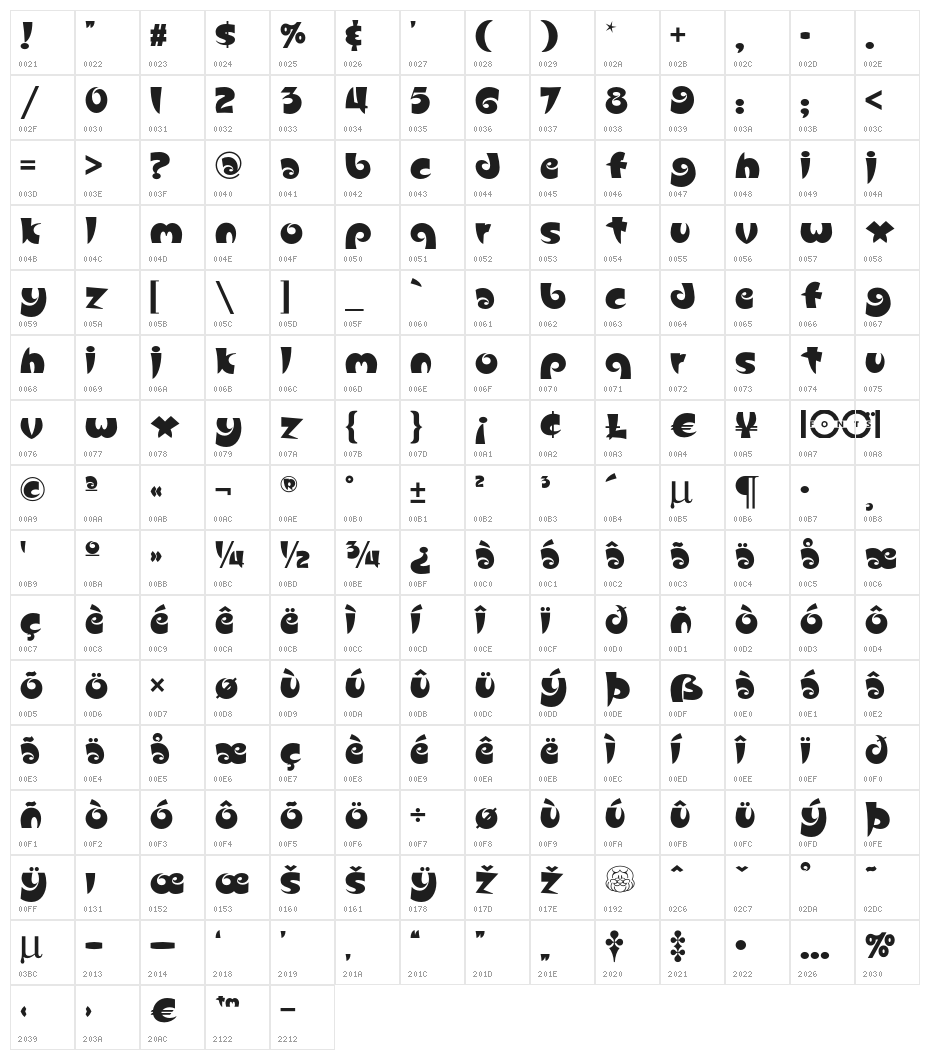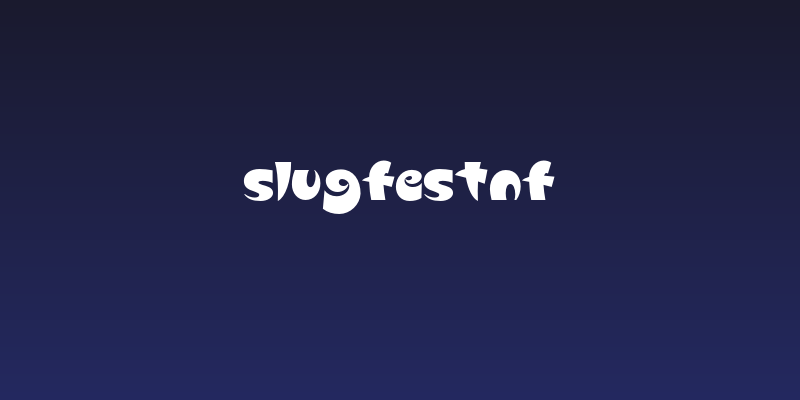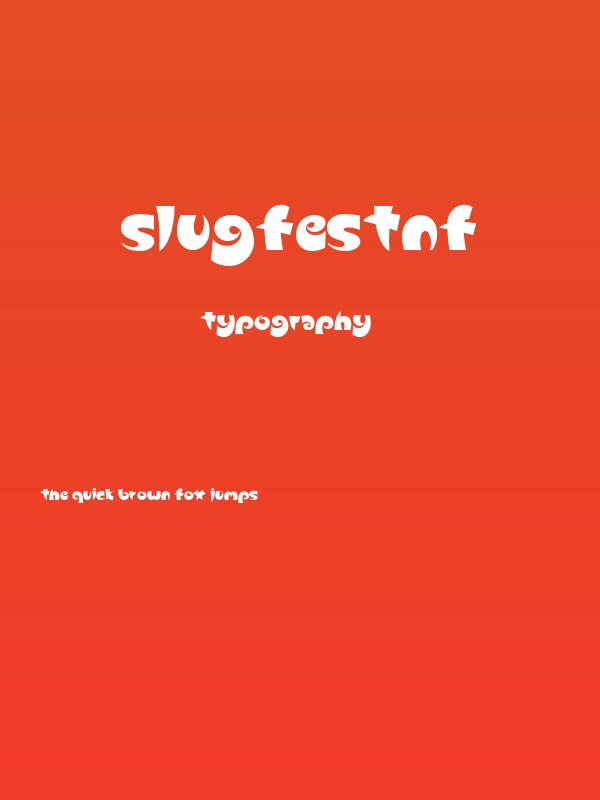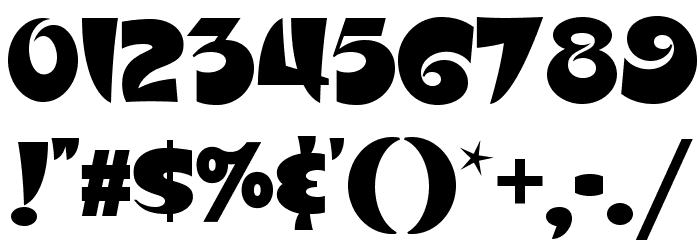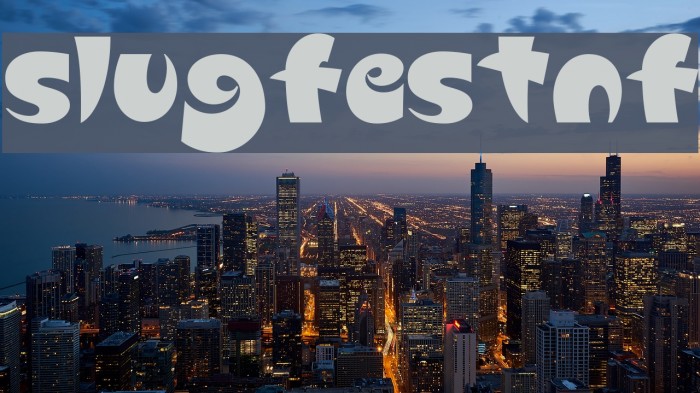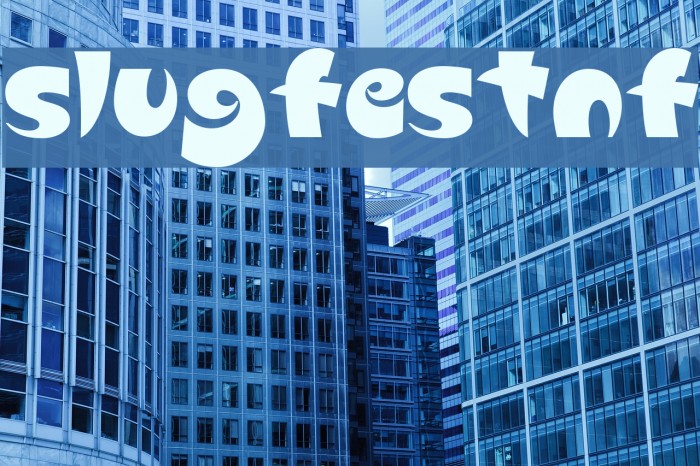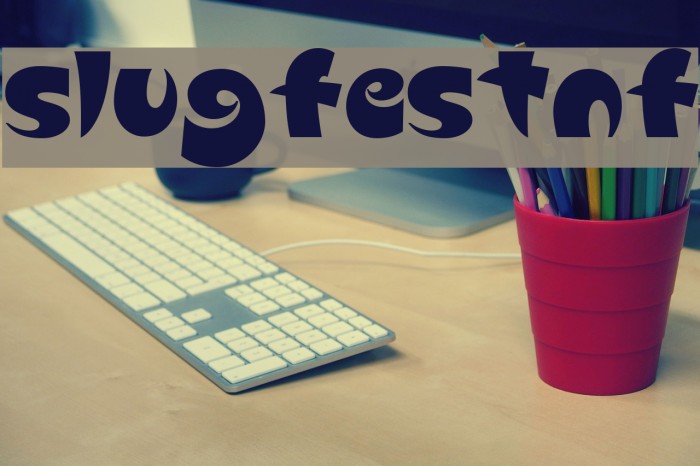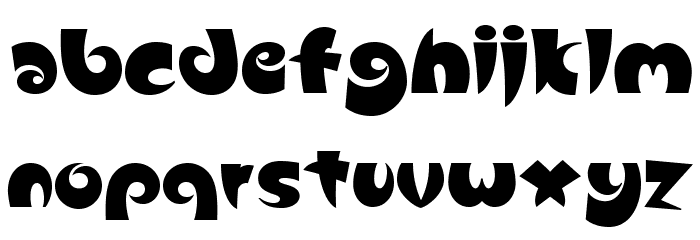
SlugfestNF Font
SlugfestNF Description
This font features a bold and playful design with exaggerated curves and thick strokes, creating a lively and energetic appearance. The characters are uniquely styled with a sense of movement, making them stand out with their whimsical and cartoonish flair. The rounded edges and varying stroke widths add a dynamic quality, while the overall boldness ensures high visibility. This font is ideal for projects that require a fun and engaging visual impact, such as children's books, posters, or playful branding. Its distinctive style makes it memorable and effective for capturing attention.
| Overall Style | Playful, Cartoonish, Energetic |
| Proposed Projects | Ideal for children's books, playful branding, posters, and creative designs. |